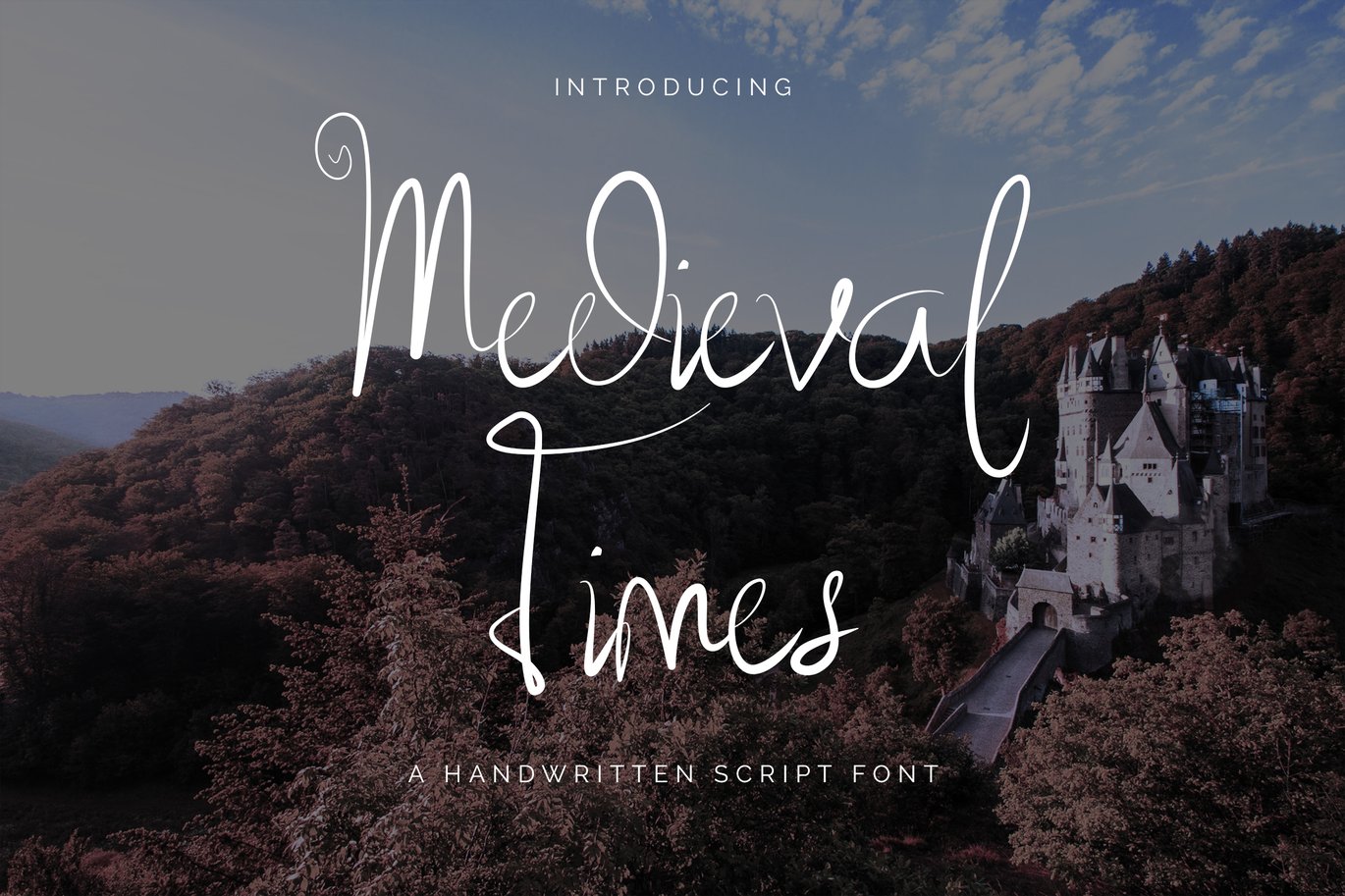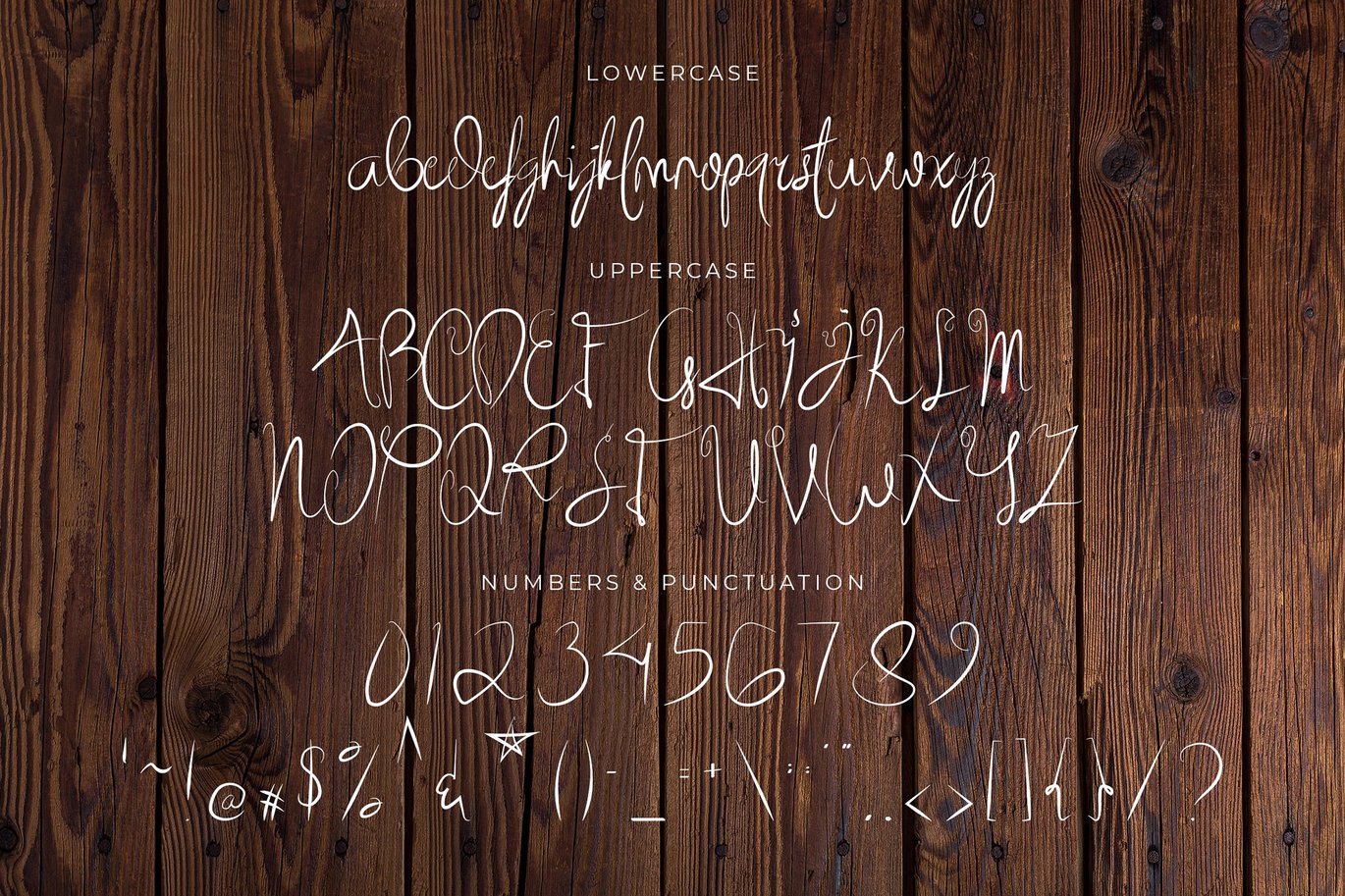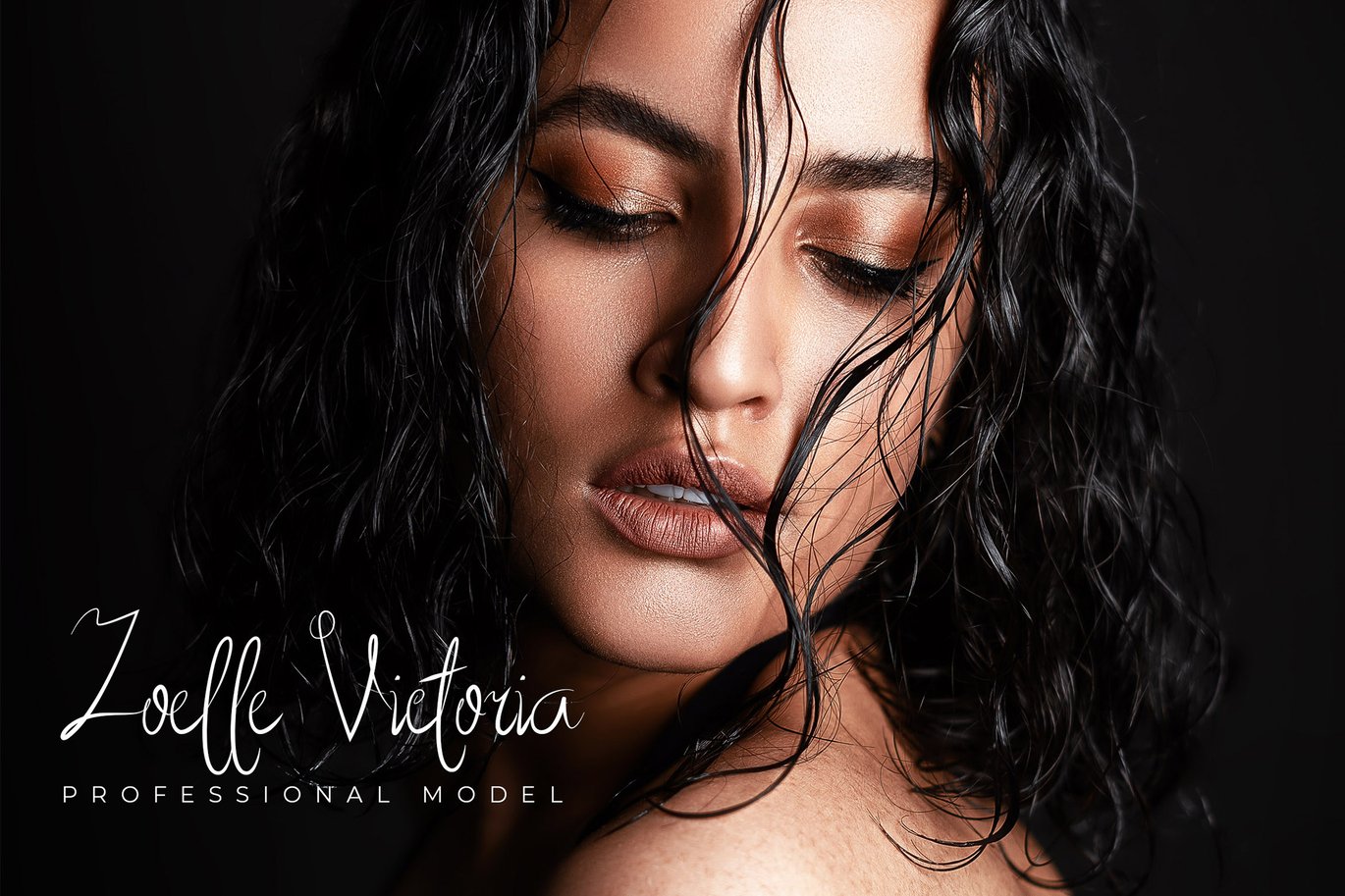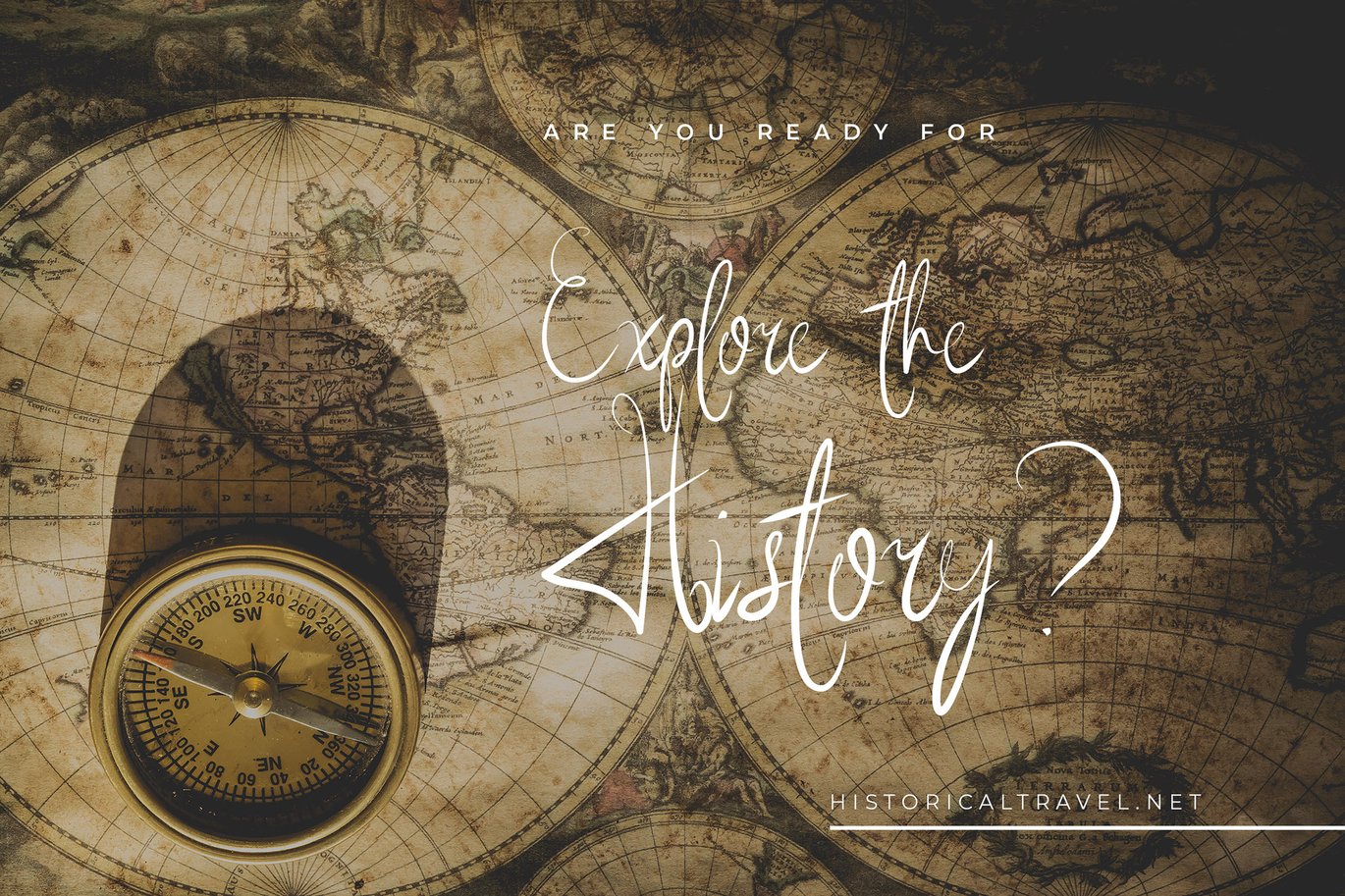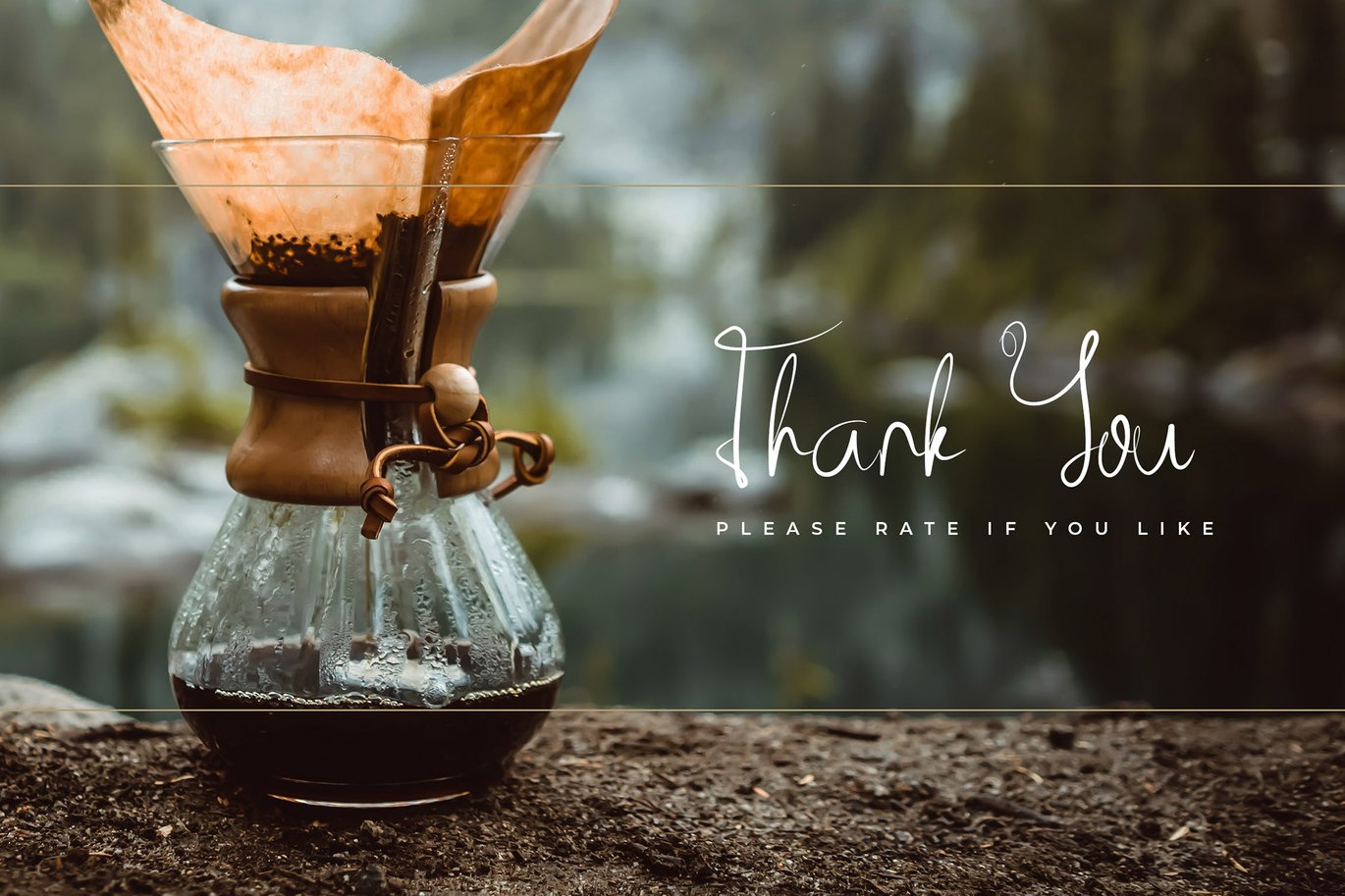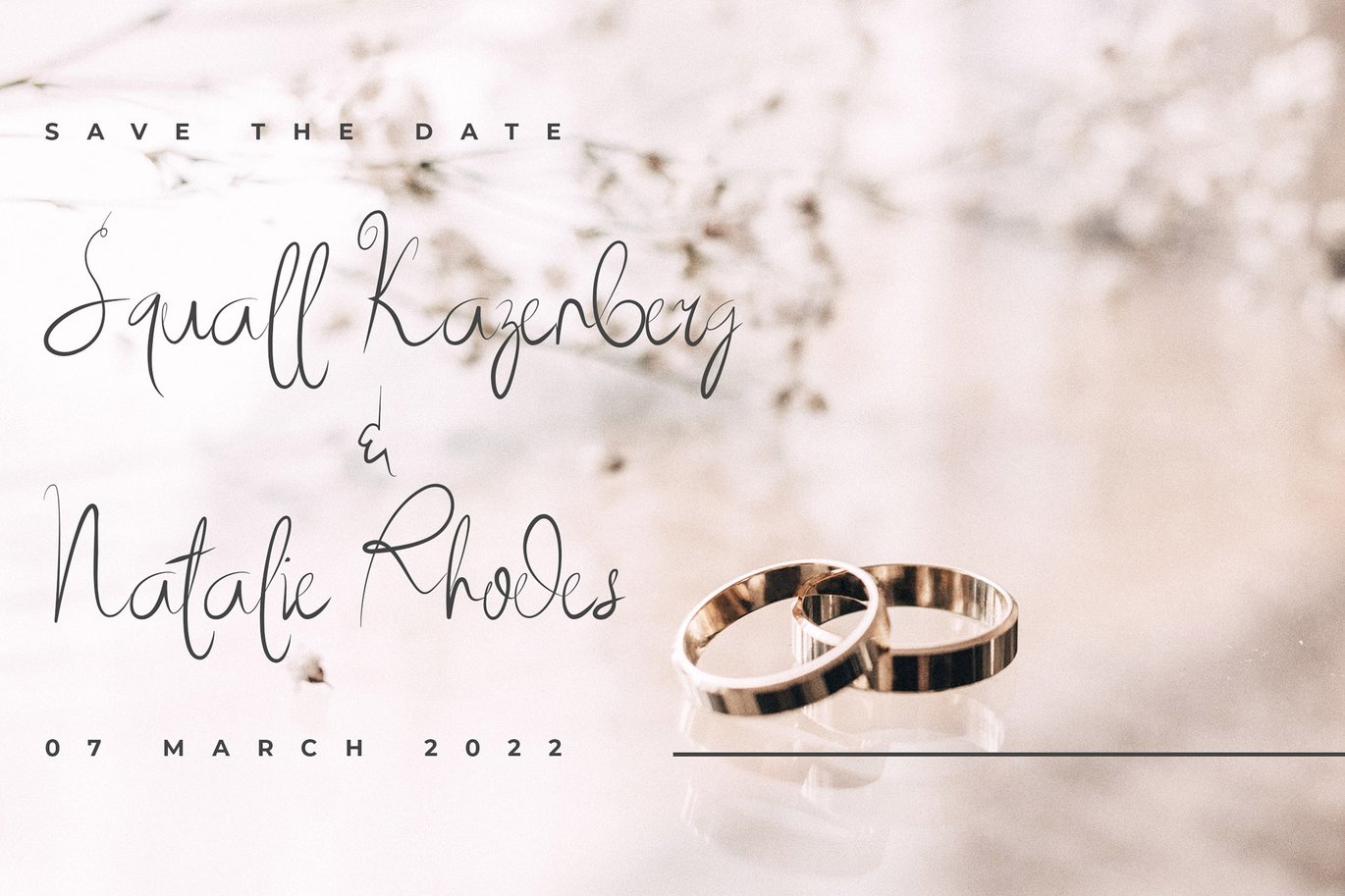
Medieval Times – Handwritten Script Font
Medieval Times is a sweet and stunning script font. It features a modern style and will add a unique feel to your upcoming projects. Get inspired by its authentic feel and use it to create gorgeous wedding invitations, beautiful stationary art, eye-catching social media posts, and cute greeting cards.